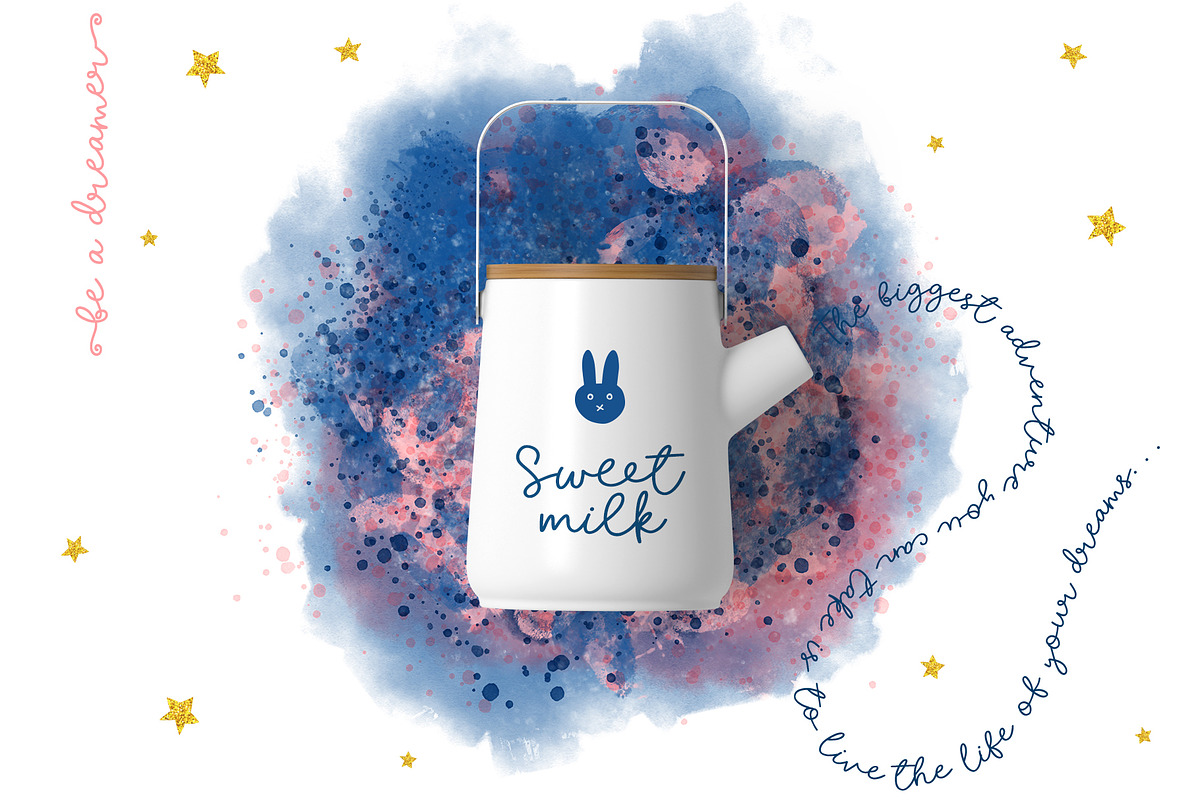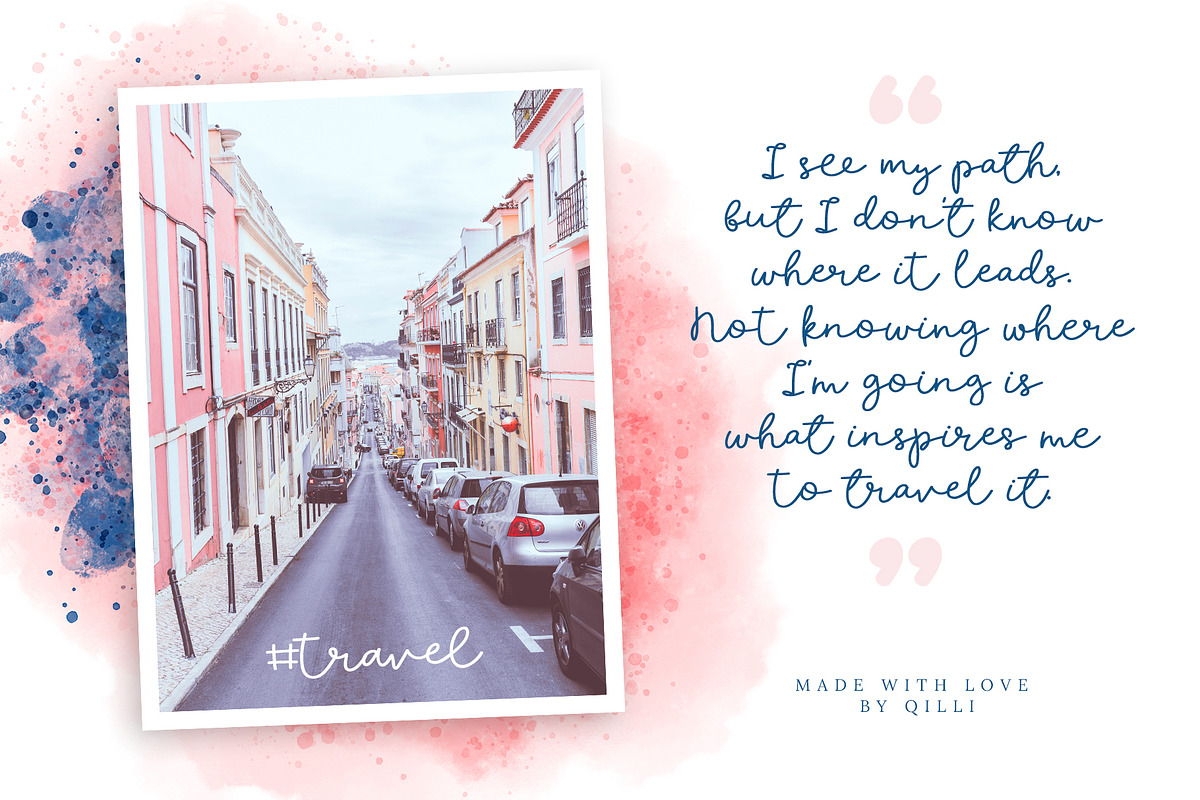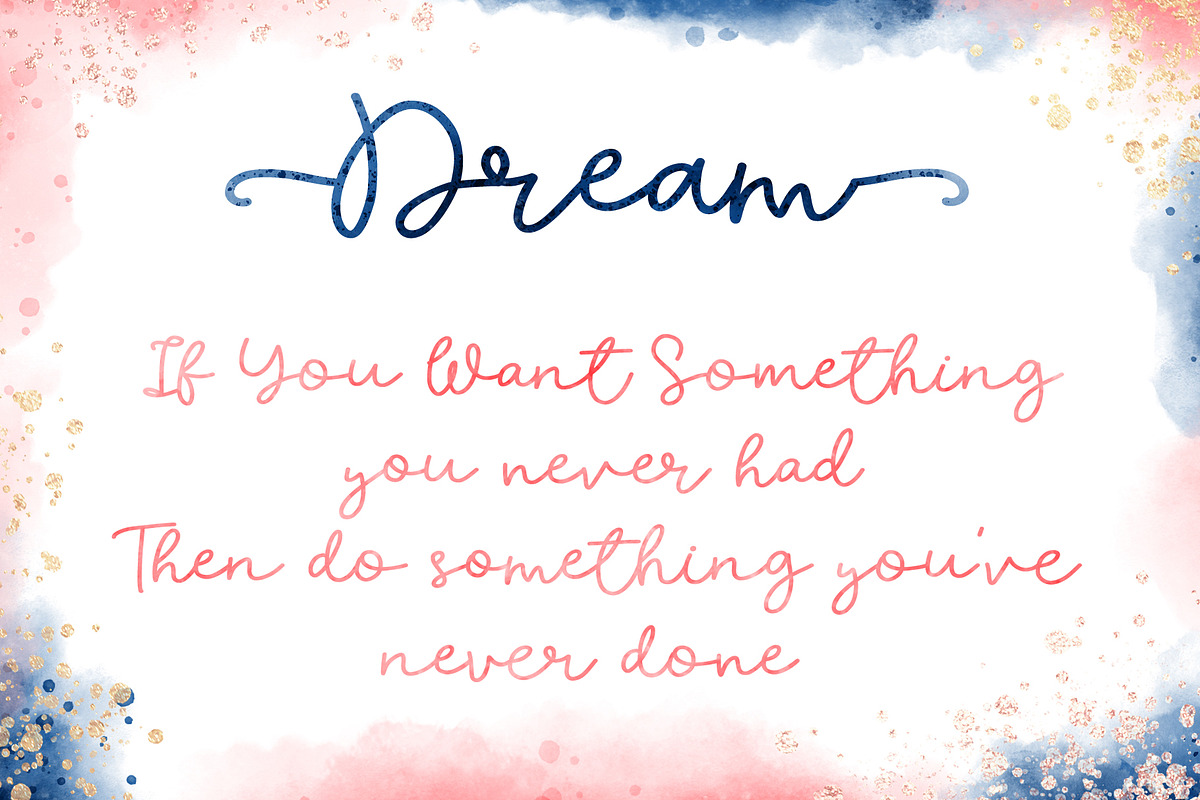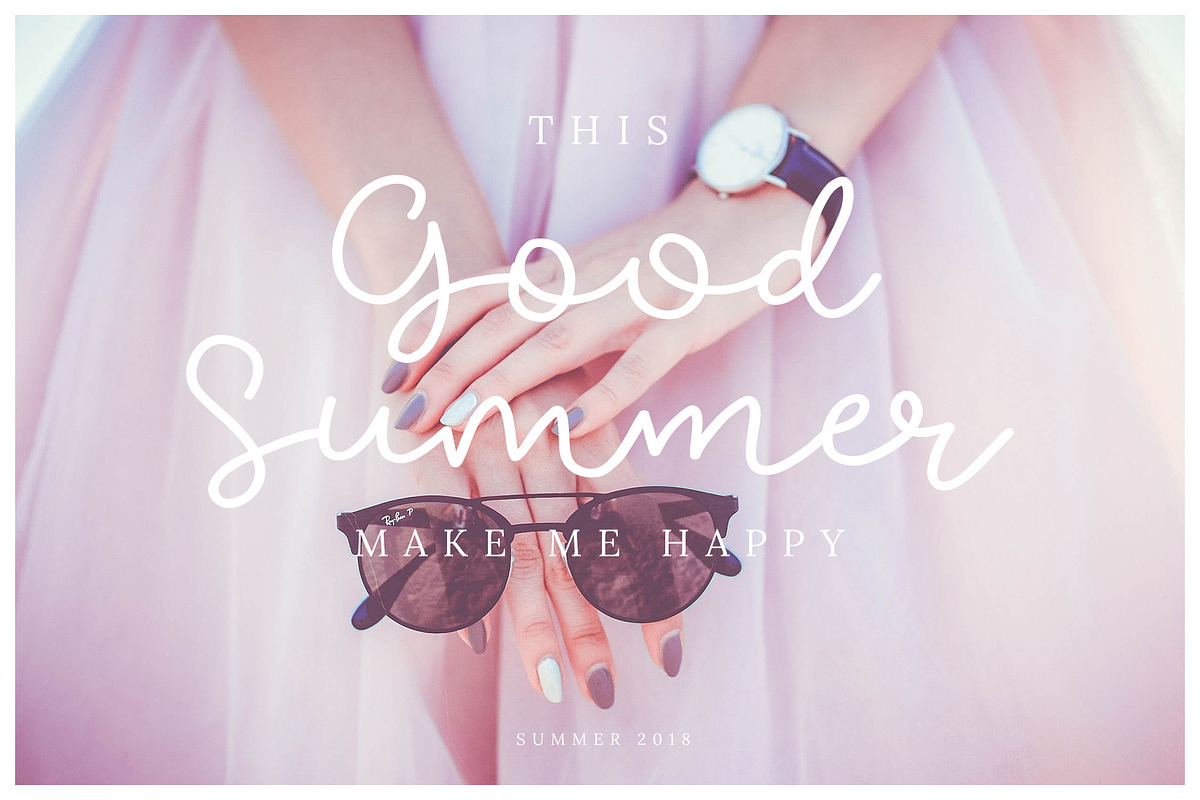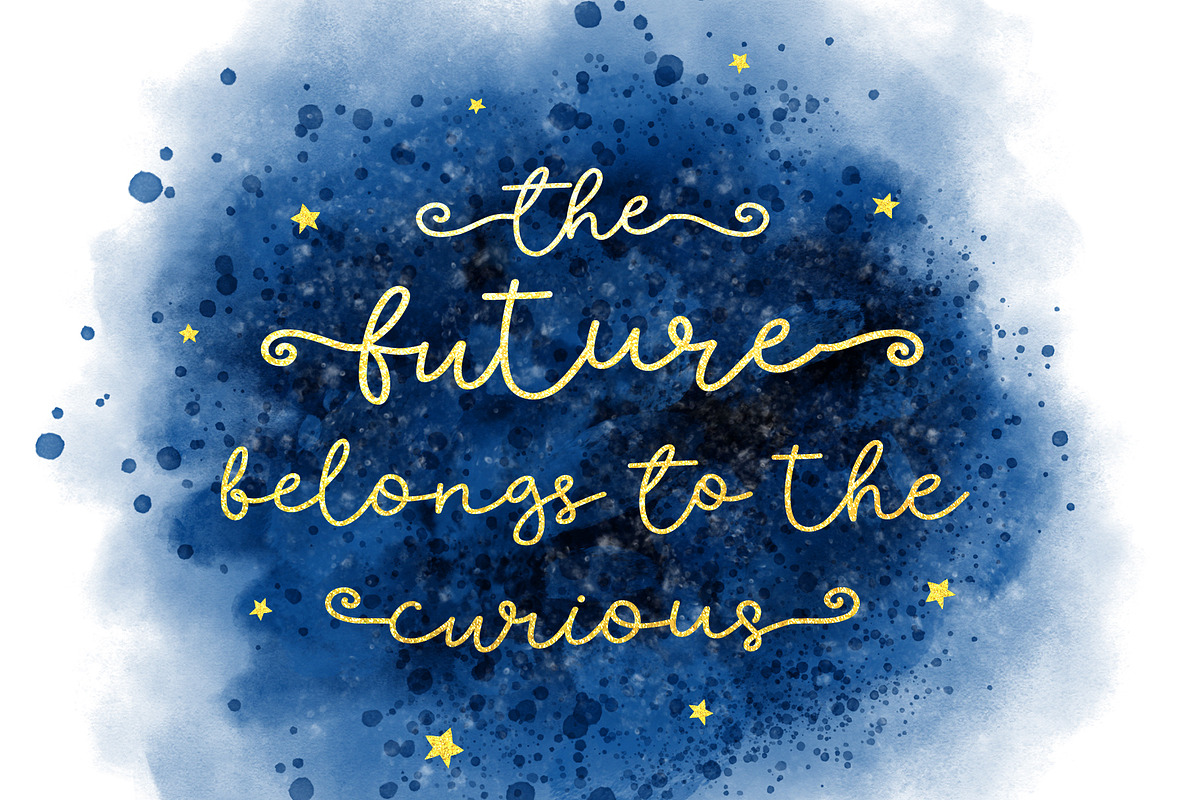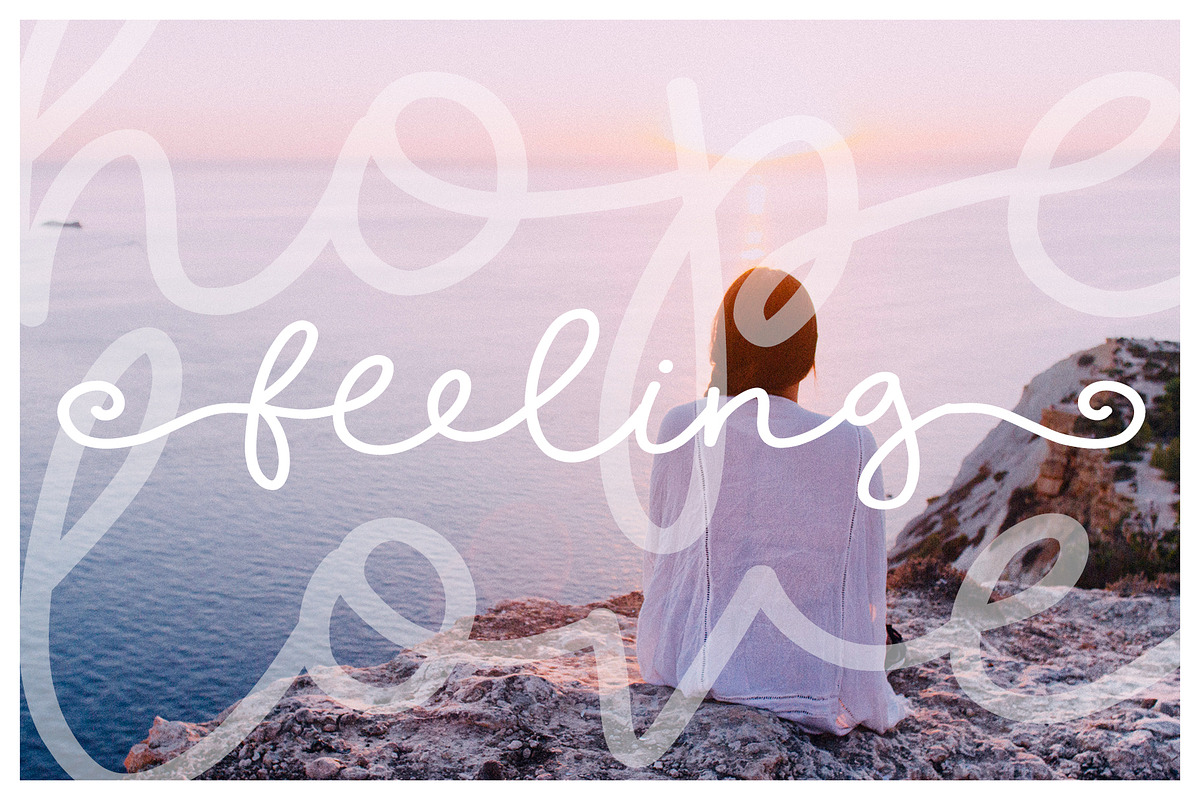
Golden Day Font with Extras & Shapes
♥ Golden Day Font - elegant script for your projects! ♥
This hand drawn font is perfect for cards, prints, logos, wedding invitations, arrange illustration and decoration. This pack includes 18 watercolor shapes!
It has upper and lower case letters, numbers, special characters, accents, alternates and ligatures.